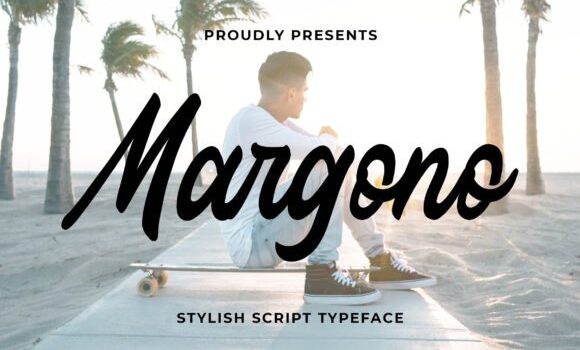
margono
Margono Font – Free Download Introduction to Margono Font Margono is a smooth script that works best for signatures, posters, branding, logotype or advertisements. 📸 Preview Gallery 5 images 📌 Product Name Margono Font 👤 Author Blankids Studio 📂 Category